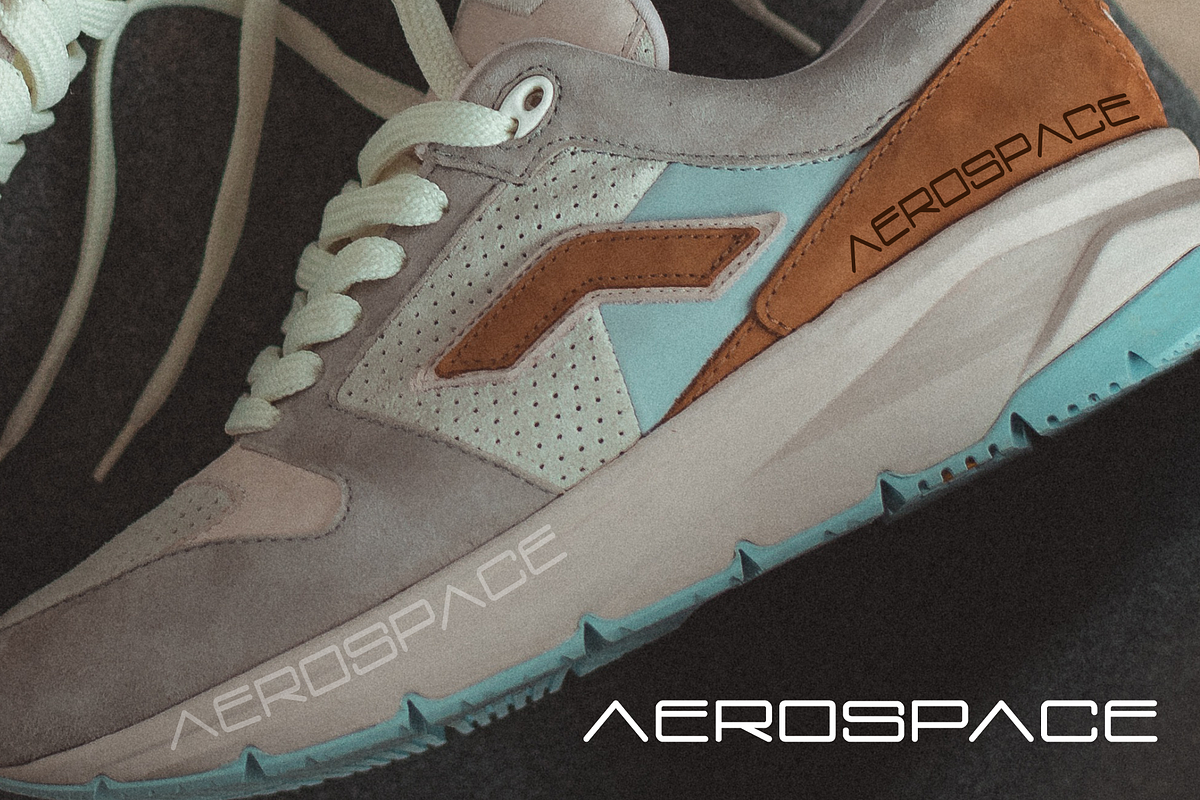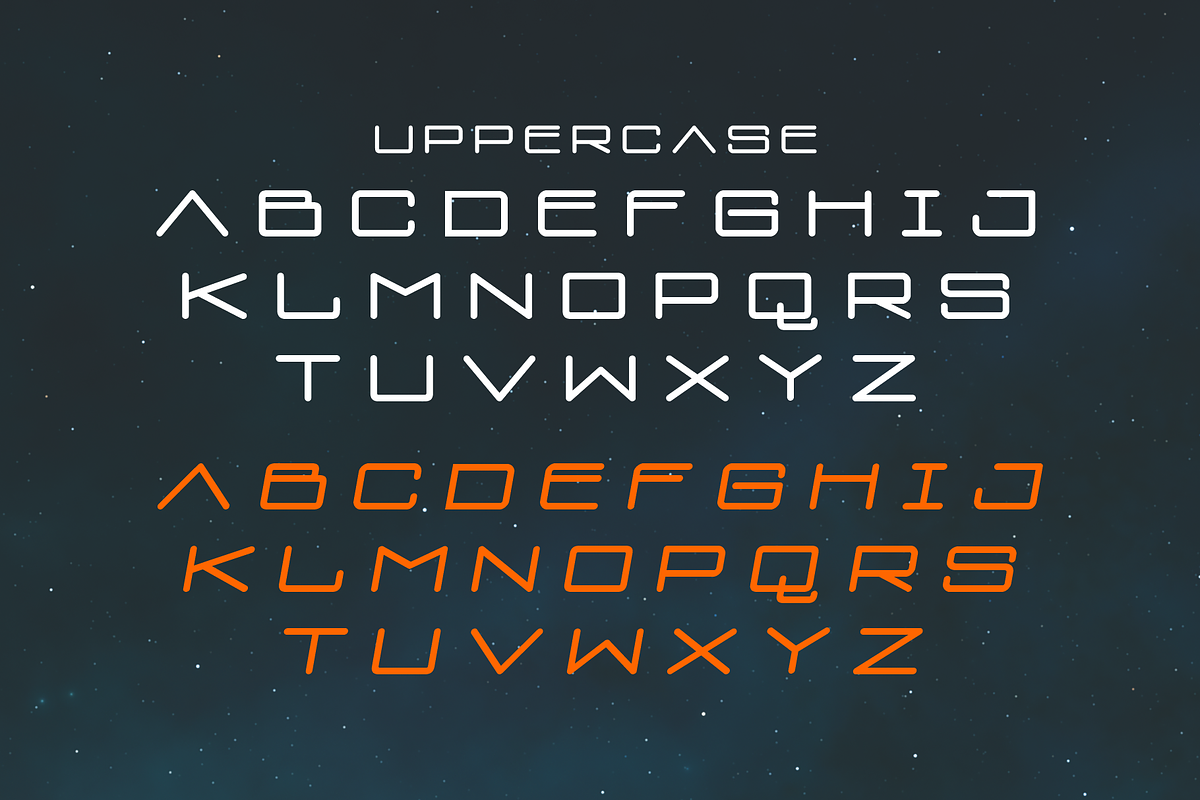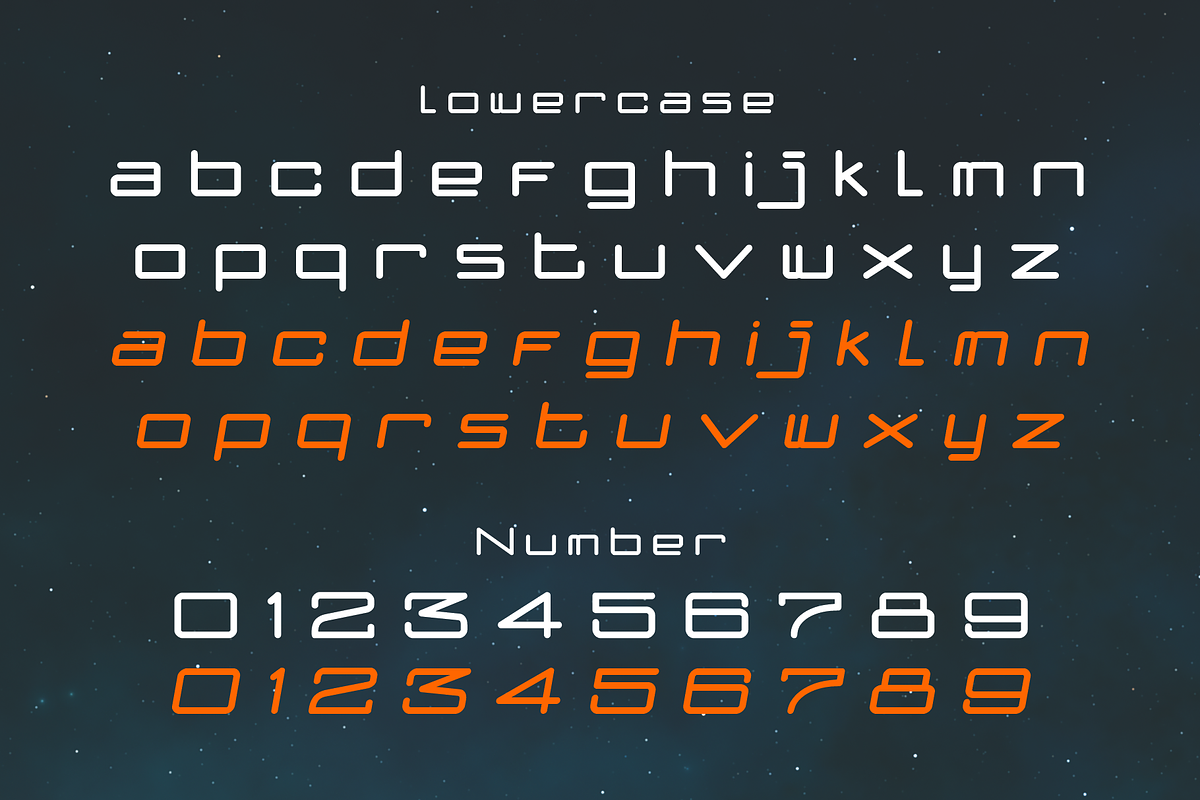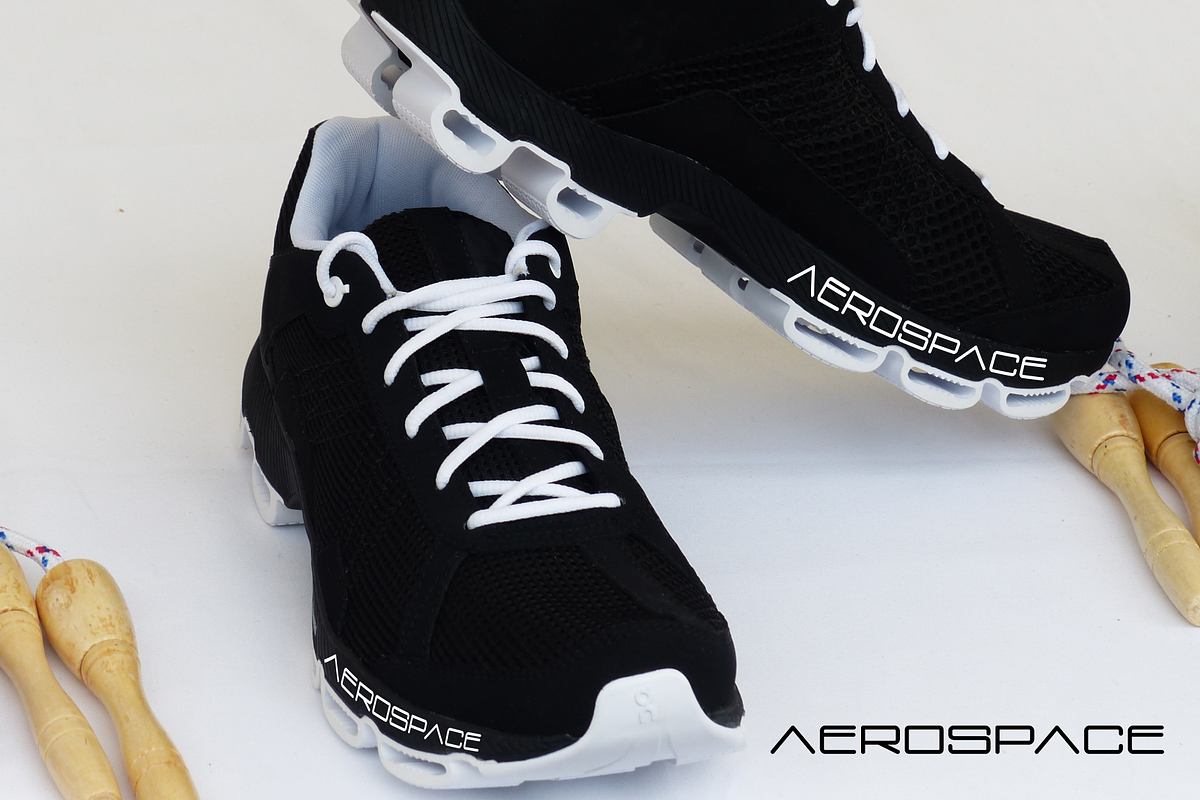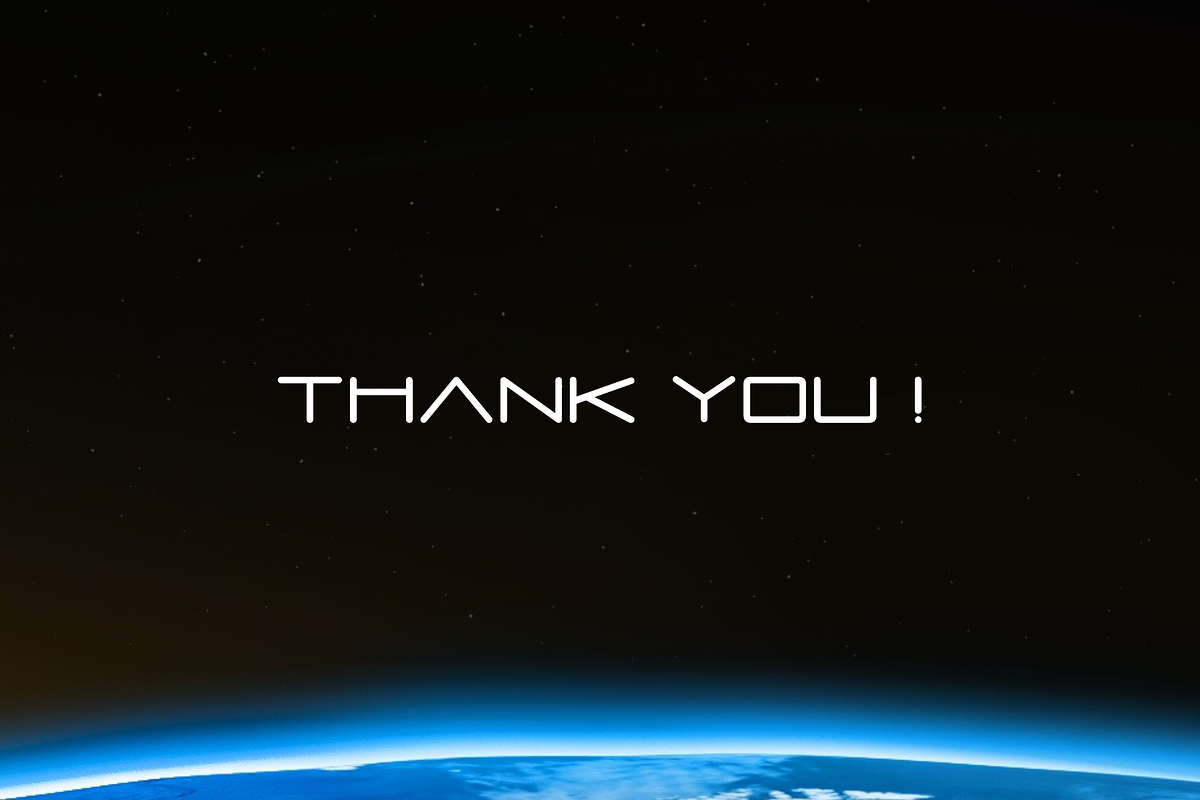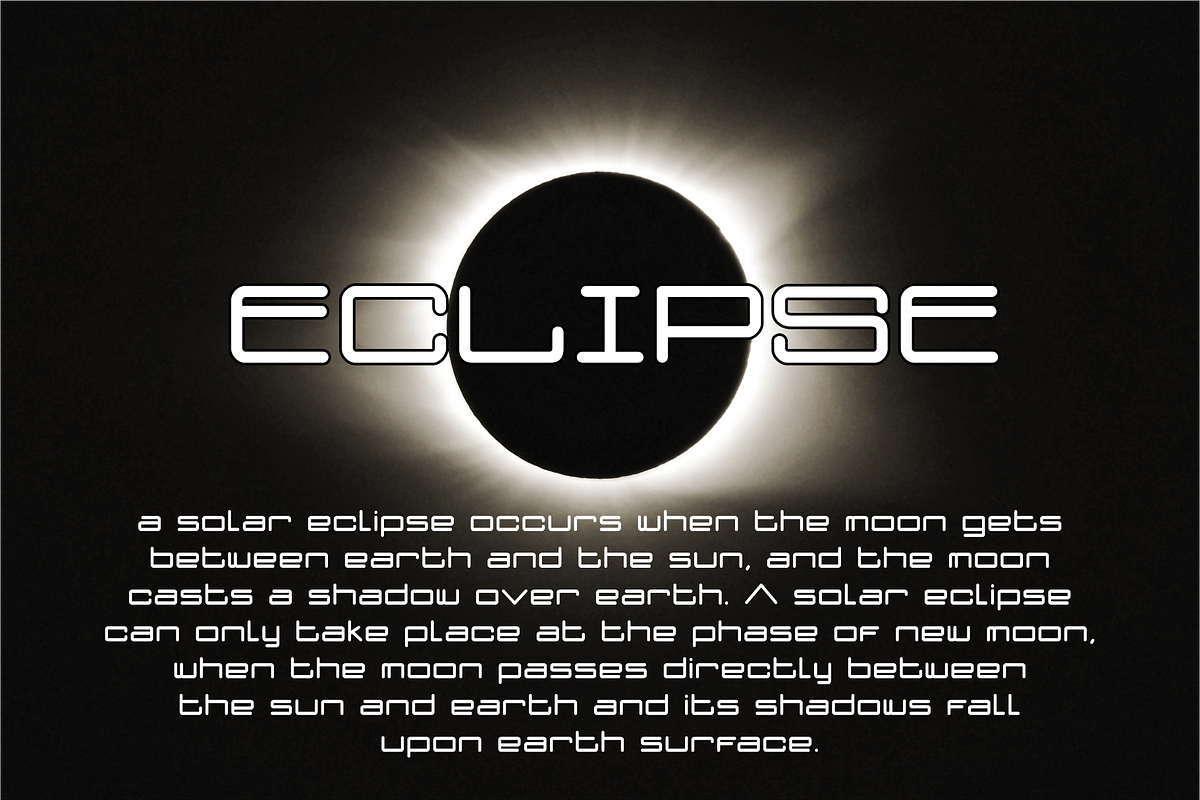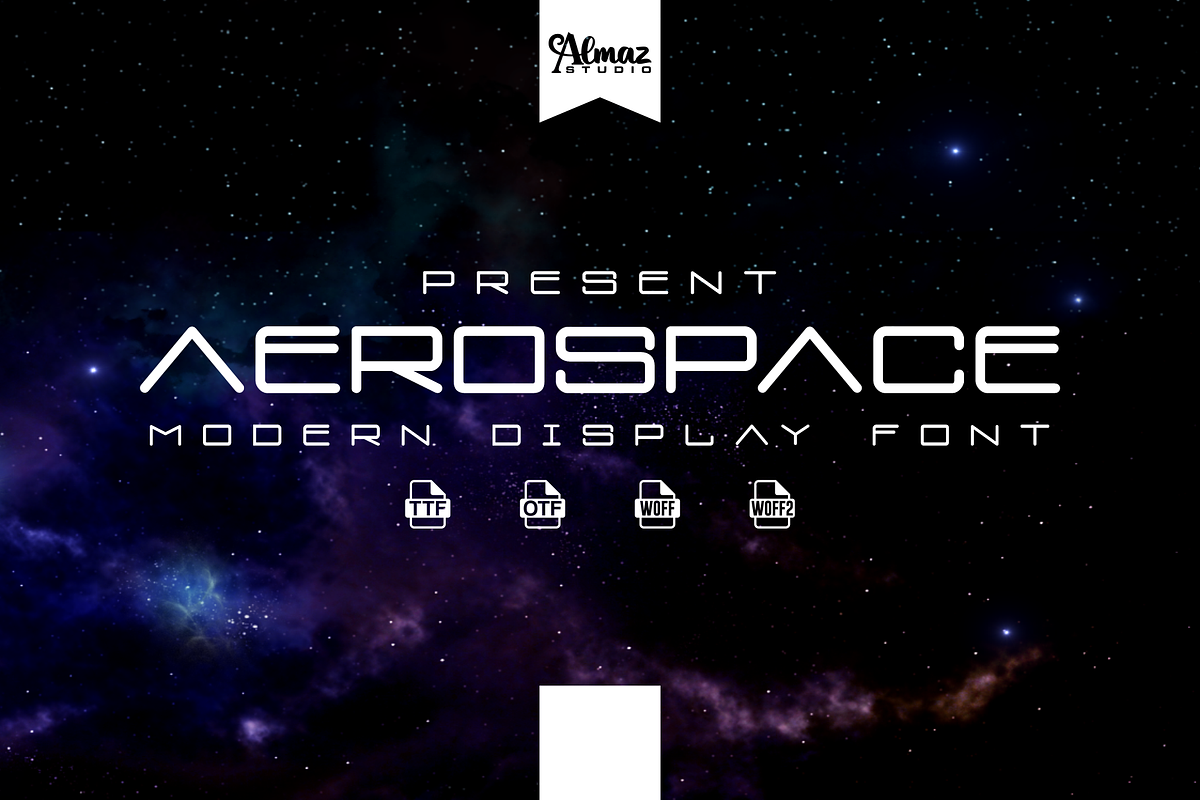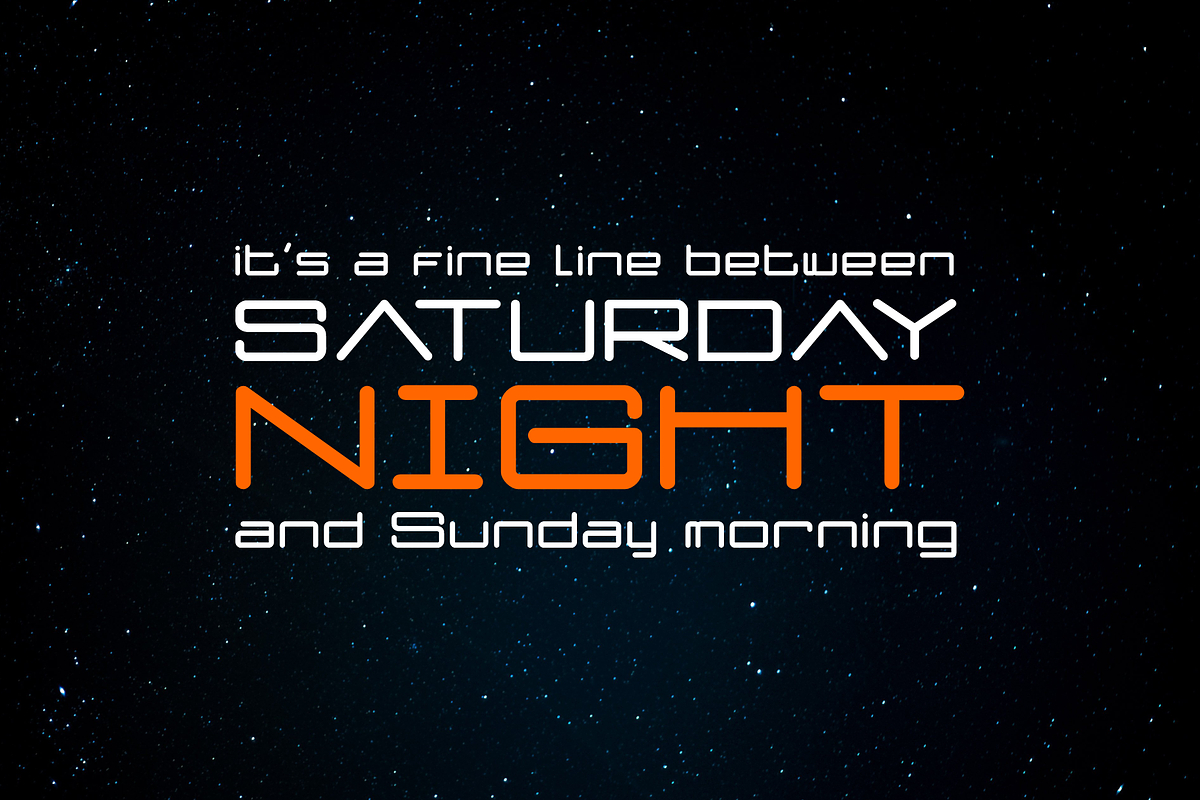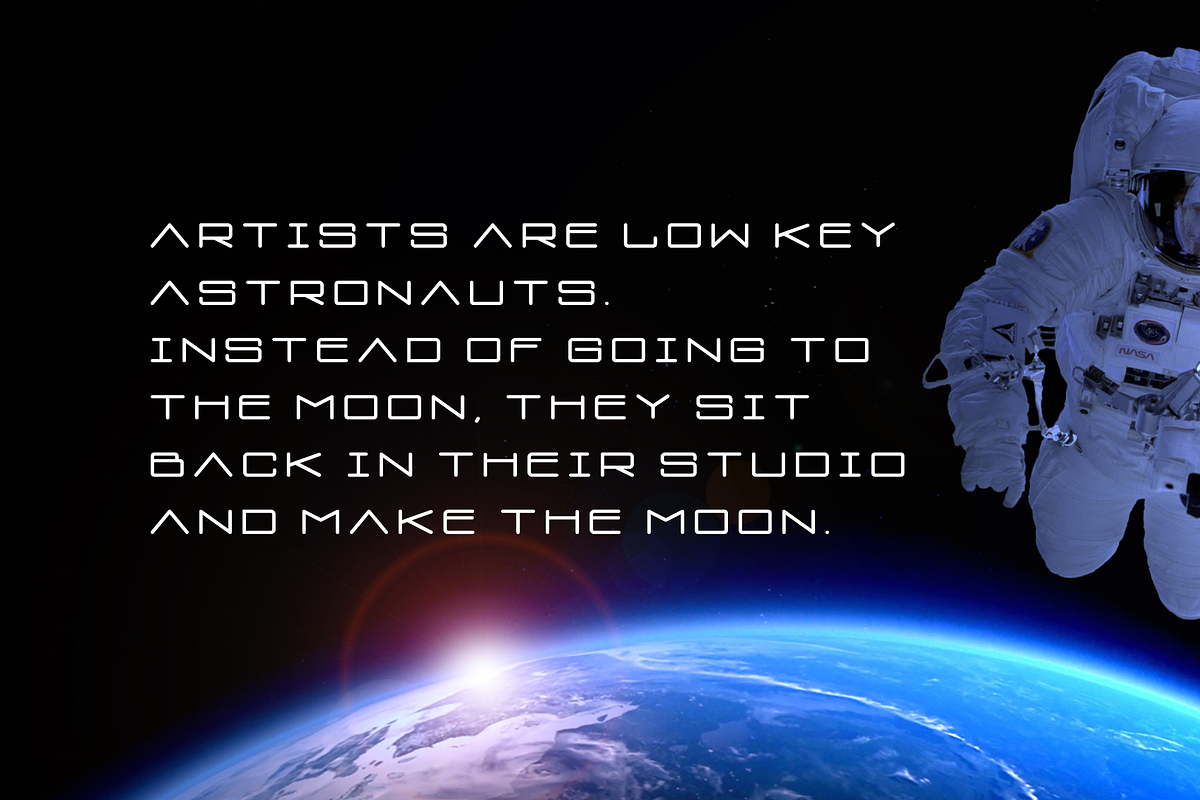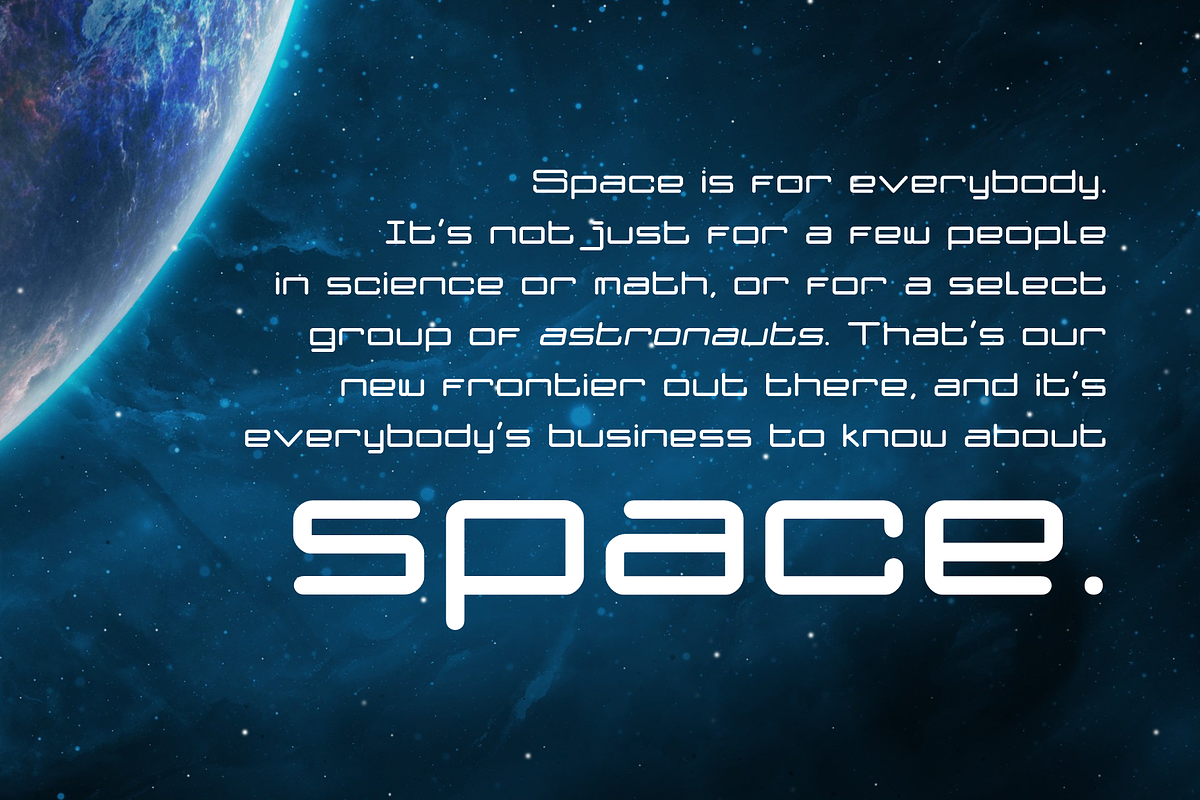
Aerospace
Aerospace made for text display purposes inspired by the trends of astronomy, automotive, and sports nowadays. We crafted this font for your design project. Support Multilanguage and you can easily create a cool logo, branding, and promotion with this font. Aerospace expanded brings a modern and strong impression to your design make this font suitable as the main text / header text on a website or layout design.